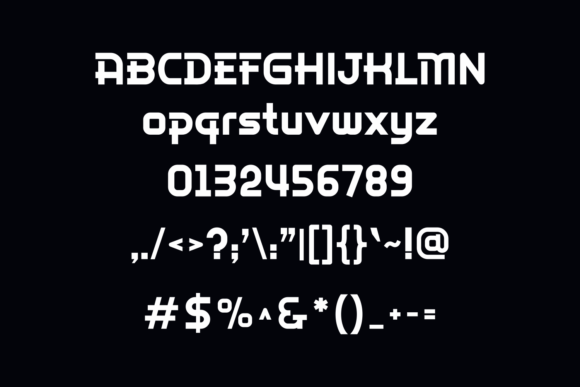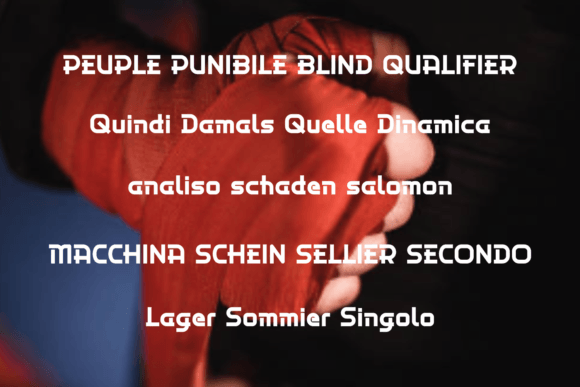
Introducing Gramha Font: The Ultimate Sans Serif Display Font for Creative Projects
In the world of typography, a font can make or break a design. It’s the foundation upon which the entire visual identity of a project is built. For designers and crafters, finding the perfect font that is both unique and versatile can be a daunting task. However, if you’re looking for a cool and unique sans serif display font that can elevate your creations, look no further than Gramha Font.
What is Gramha Font?
Gramha is a meticulously crafted sans serif display font that is designed to make a statement. Its sleek and modern design makes it perfect for a wide range of creative projects, from branding and advertising to packaging and digital media. With its highly detailed and neat design, Gramha Font is sure to impress even the most discerning designers and crafters.
Key Features of Gramha Font
- Unique and Versatile: Gramha Font is a one-of-a-kind sans serif display font that can be used for a variety of creative projects. Its versatility makes it an excellent addition to any font library.
- Highly Detailed: Gramha Font is crafted with precision and attention to detail, ensuring that it looks great in any size or application.
- Neat and Modern Design: The font’s sleek and modern design makes it perfect for projects that require a clean and contemporary look.
- Easy to Read: Despite its unique design, Gramha Font is highly legible, making it perfect for use in body text, headlines, and titles.
Why Choose Gramha Font?
So, why should you choose Gramha Font for your next project? Here are just a few reasons:
- Stand Out from the Crowd: With Gramha Font, you can create designs that stand out from the crowd. Its unique and modern design ensures that your project will grab attention and leave a lasting impression.
- Enhance Your Brand: Gramha Font is perfect for branding and advertising projects. Its sleek and modern design can help to elevate your brand’s visual identity and make it more recognizable.
- Perfect for Digital Media: Gramha Font is optimized for use in digital media, including websites, social media, and mobile apps. Its clean and modern design ensures that it looks great on any device.
How to Use Gramha Font
Using Gramha Font is easy. Here are a few tips to get you started:
- Pair it with Other Fonts: Gramha Font pairs well with other sans serif fonts. Try pairing it with a serif font for a contrasting look.
- Use it for Headlines: Gramha Font is perfect for use in headlines and titles. Its bold and modern design ensures that it will grab attention.
- Experiment with Colors: Gramha Font looks great in a variety of colors. Experiment with different colors to find the one that works best for your project.
In conclusion, Gramha Font is a cool and unique sans serif display font that is perfect for designers and crafters. Its highly detailed and neat design makes it a wonderful asset to any font library. With its versatility and modern design, Gramha Font is sure to elevate any creative project. Whether you’re working on a branding project, advertising campaign, or digital media project, Gramha Font is the perfect choice.